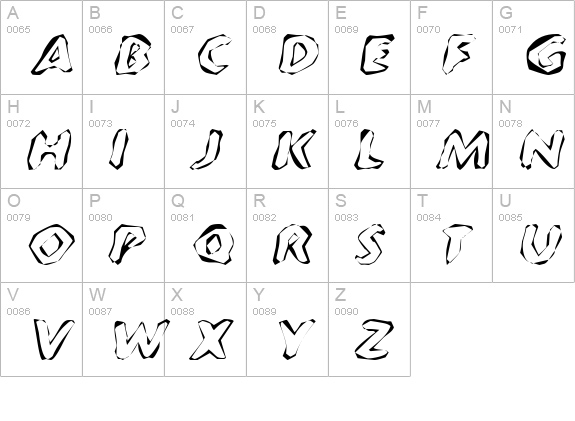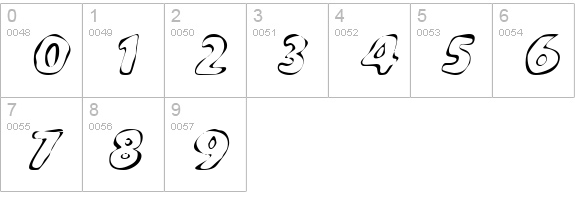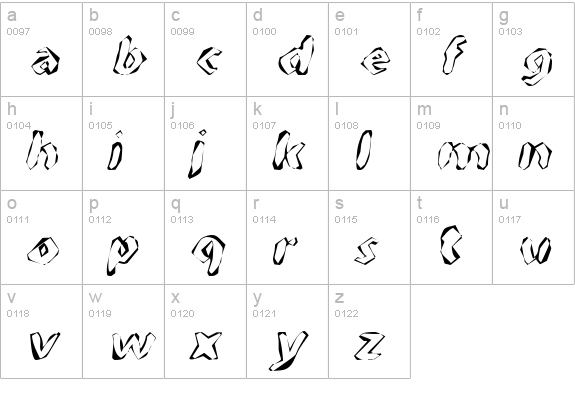
FlintPrint Oblique is a distinctive, italic variant in the FlintPrint typeface family \xE2\x80\x94 well suited to design and typography projects.
FlintPrint Oblique font is a modern and stylish typeface that exudes elegance and sophistication. Its sleek and slanted design adds a touch of flair to any project, making it perfect for branding, headlines, and creative designs. The unique characteristics of FlintPrint Oblique font make it stand out from the crowd, giving your work a professional and polished look. What makes FlintPrint Oblique font even more appealing is that it is available for free download at FontsMarket.com. This means you can access this exquisite font without any cost, allowing you to enhance your projects without breaking the bank. Don't miss out on the opportunity to add FlintPrint Oblique font to your font collection today and take your designs to the next level.